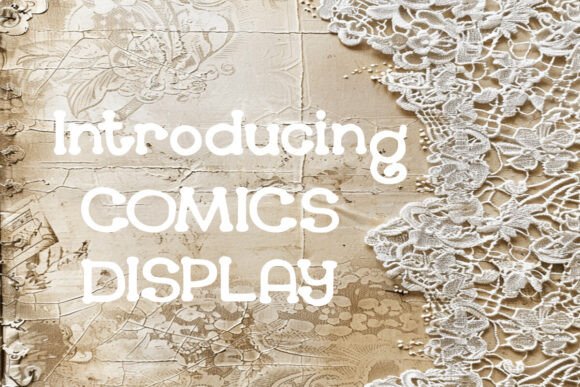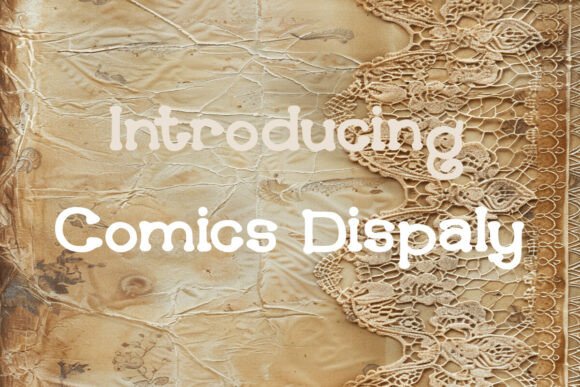
Unleash Your Creativity with Comics Display Font
In the world of design, a font can make all the difference. It can elevate your project from ordinary to extraordinary, convey emotions, and even evoke a specific tone. If you’re a designer, crafter, or DIY enthusiast looking for a versatile typeface that can bring your creative visions to life, look no further than the Comics Display font. This stunning font is perfect for a wide range of applications, from shirt designs and magazine layouts to branding, greeting cards, and more.
A Versatile Typeface for Various Creative Canvases
The Comics Display font is a powerful tool that can add a touch of magic to various creative canvases. Its versatility makes it an excellent choice for:
- Shirt Designs: Create eye-catching and unique apparel with Comics Display. Its bold and playful style is sure to turn heads.
- Magazine Layouts: Add a pop of personality to your magazine layouts with this font. It’s perfect for headings, titles, and captions.
- Branding: Establish a strong brand identity with Comics Display. Its stunning quality makes it ideal for logos, business cards, and other marketing materials.
- Personalized Greeting Cards: Create one-of-a-kind greeting cards that showcase your creativity and thoughtfulness.
Seamless Integration with SVG Files and Cricut Projects
Comics Display font truly shines in SVG files and Cricut projects. Its high-quality design ensures a seamless integration with these formats, making it easy to cut and craft your designs with precision. Whether you’re a seasoned crafter or a DIY beginner, this font is sure to become a favorite in your design arsenal.
Captivating Audiences across Social Media Platforms
In today’s digital age, social media platforms are an essential part of any designer’s or brand’s online presence. Comics Display font is specifically designed to stimulate visual interest and effortlessly captivate audiences across various social media platforms. Its bold and playful style is sure to grab attention, making it perfect for:
- Posters: Create stunning posters that showcase your message, product, or service.
- Social Media Graphics: Design engaging social media graphics that drive engagement and conversions.
- Online Ads: Create eye-catching online ads that capture attention and drive results.
Beyond Just a Font: A Medium for Creativity
Comics Display font is more than just a typeface – it’s a medium that channels your creativity into striking, tangible results. Its versatility, stunning quality, and seamless integration with various formats make it an excellent choice for designers, crafters, and DIY enthusiasts. With Comics Display, you can:
- Express Yourself: Bring your ideas to life with this font’s bold and playful style.
- Establish Your Brand: Create a strong brand identity that resonates with your audience.
- Connect with Your Audience: Design engaging and captivating visual content that drives results.
In conclusion, Comics Display font is a powerful tool that can elevate your designs, captivate audiences, and bring your creative visions to life. Its versatility, stunning quality, and seamless integration with various formats make it an excellent choice for designers, crafters, and DIY enthusiasts. Whether you’re looking to create stunning shirt designs, captivating social media graphics, or personalized greeting cards, Comics Display font is the perfect choice. So why wait? Unleash your creativity with Comics Display font and take your designs to the next level.